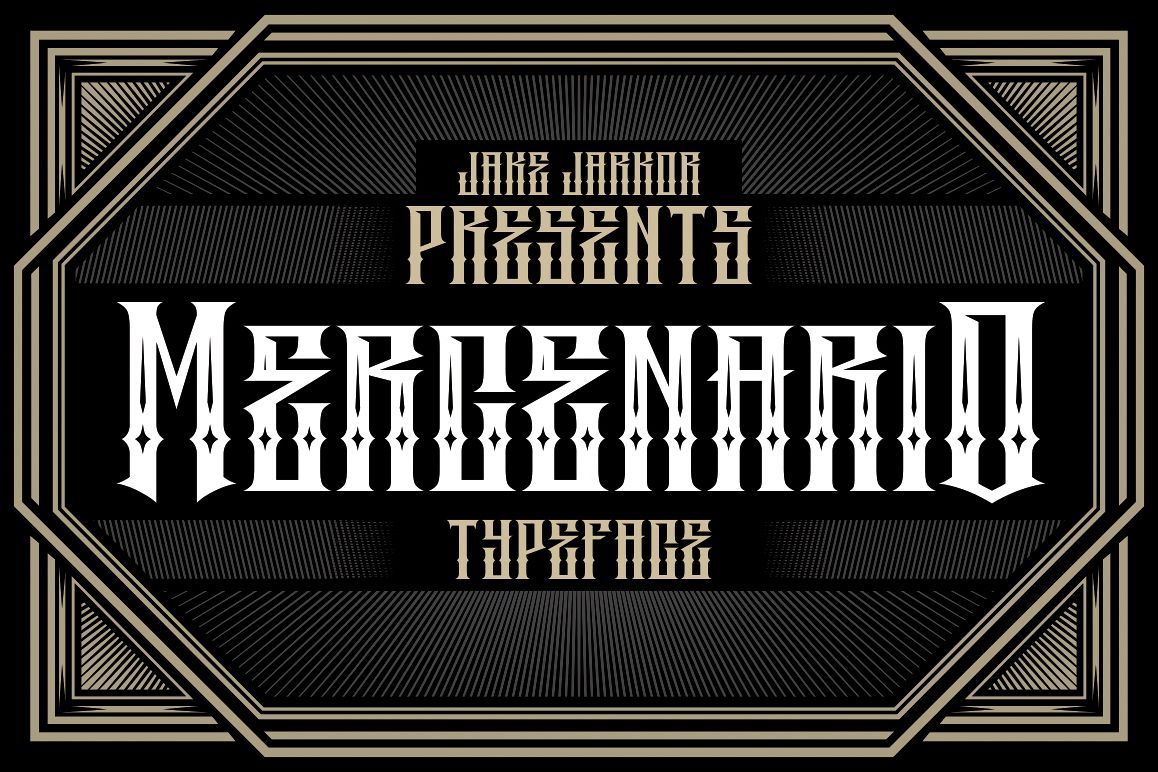
MERCENARIO
Jake
Jarkor Presents:
MERCENARIO is
a typeface inspired in tattoo letters, vintage signs and street art. It
works well with normal size text, but it works even better for large displays,
short words, or even just to incorporate a few or single characters in a
design. Suitable for many creative products & tattoo designs, like posters,
t-shirt, street wear, logo, signage, headlines, etc.
Jake Jarkor Presenta:
MERCENARIO es una tipografía inspirada
en el tatuaje,
los anuncios antiguos y el arte de la calle
. Funciona bien con el
texto de tamaño normal, pero funciona incluso mejor para diseños de gran
tamaño, palabras cortas, o incluso sólo para incorporar un par de caracteres
individuales en el diseño. Es una tipografía muy conveniente para productos
creativos y diseños para tatuajes, como carteles, playeras, logotipo,
señalización, titulares, etc.